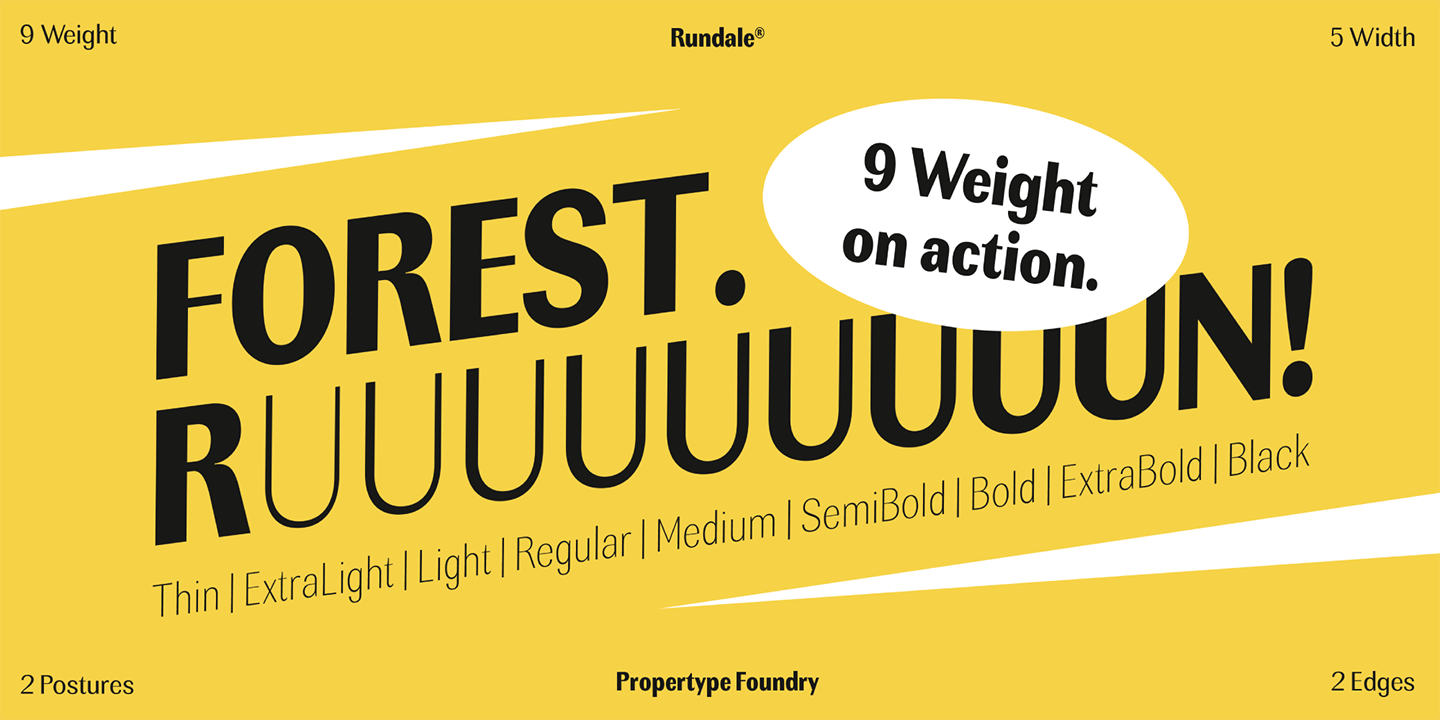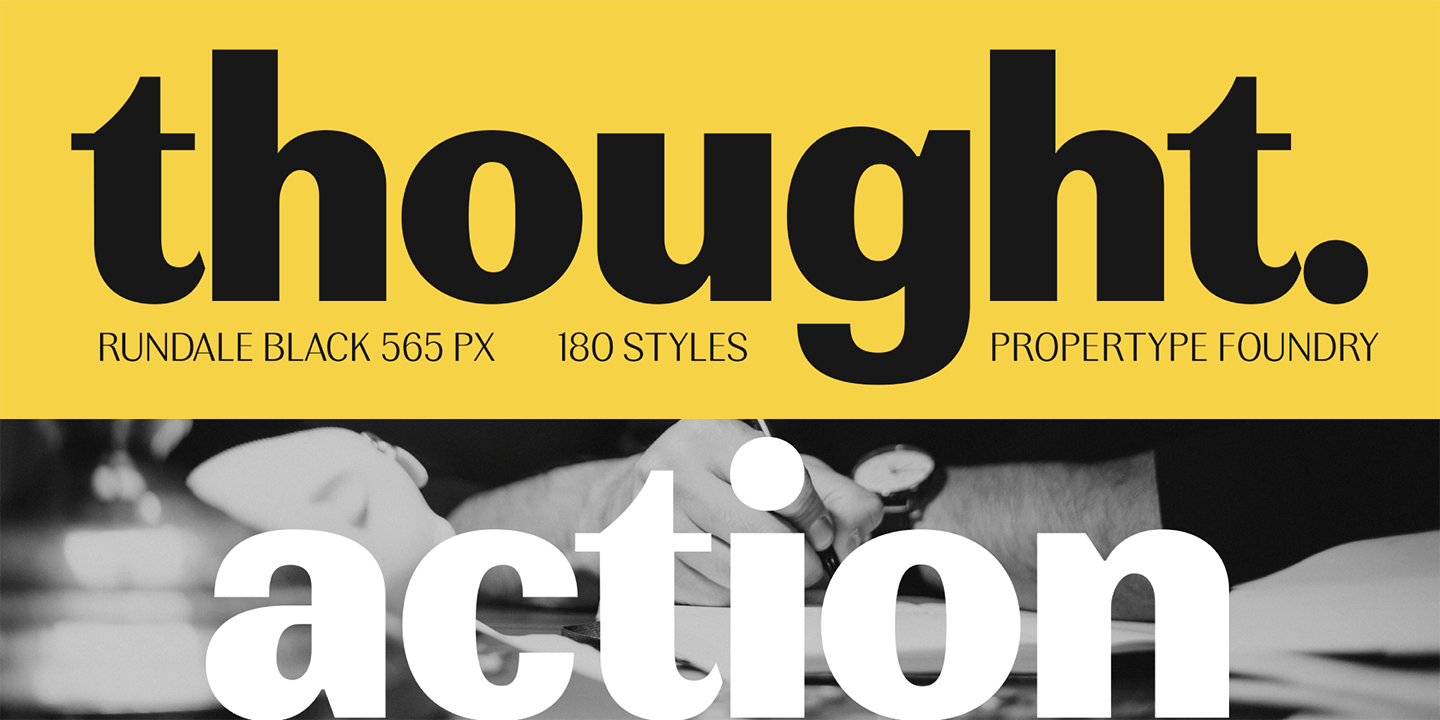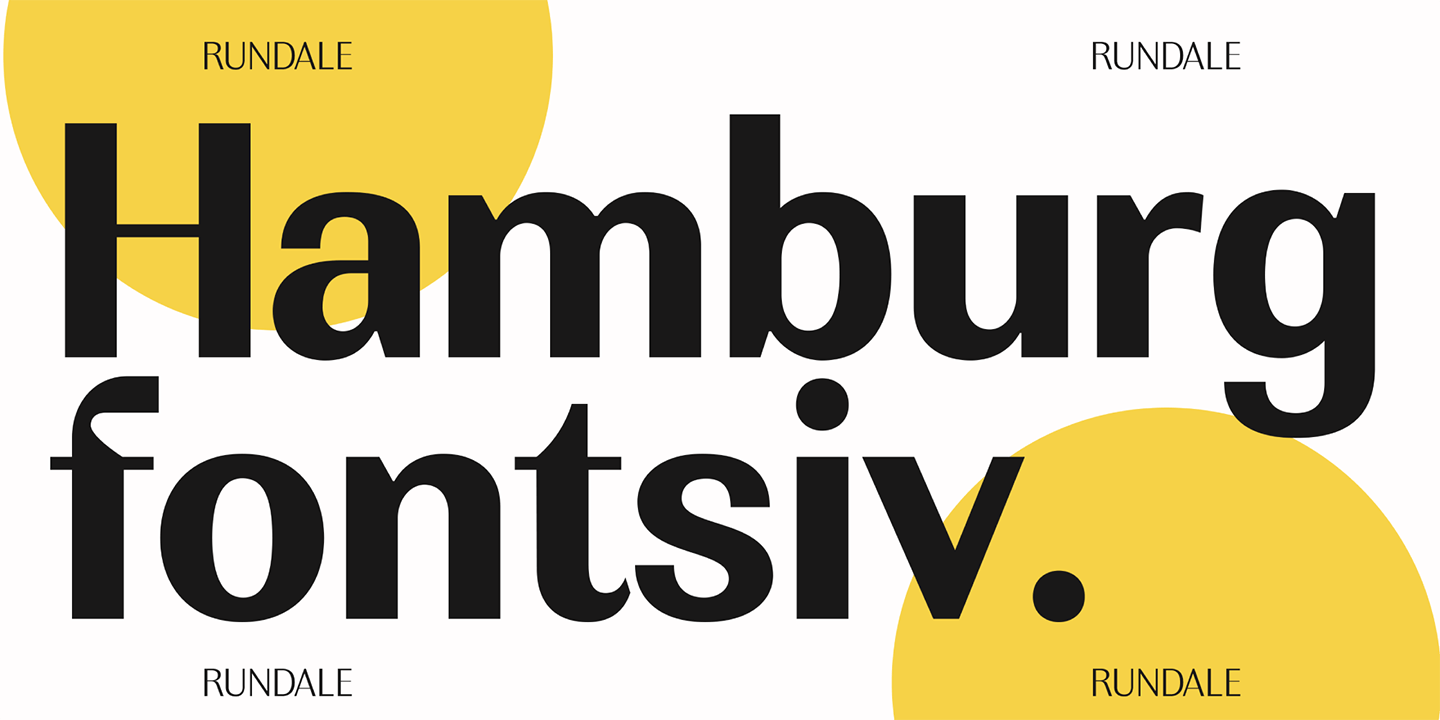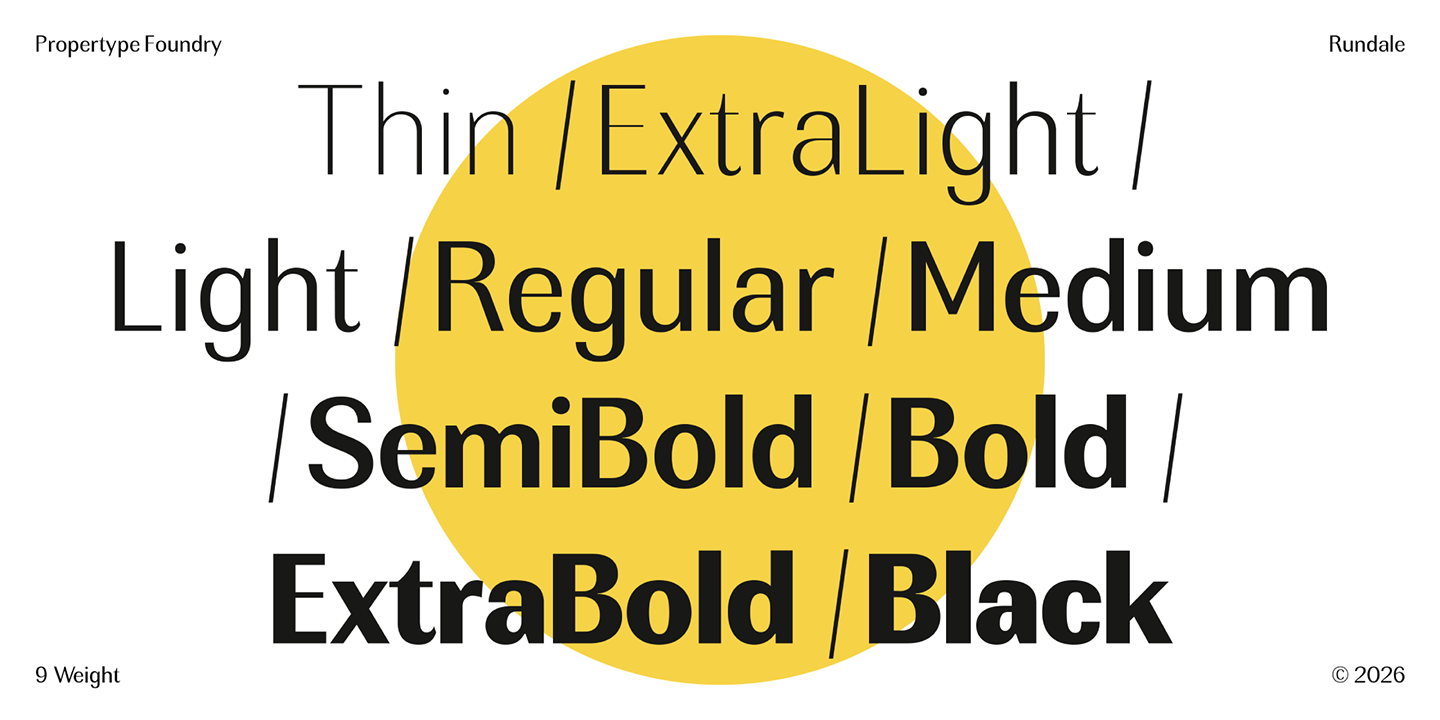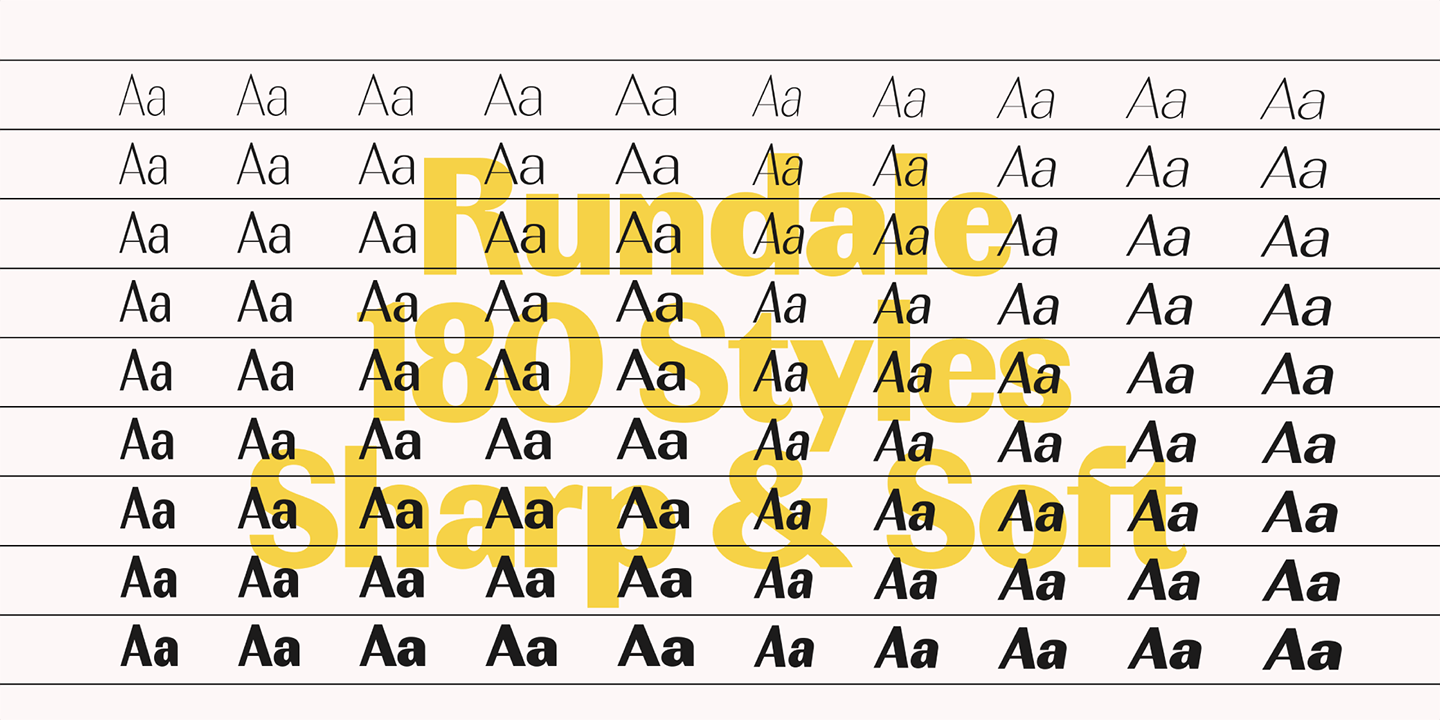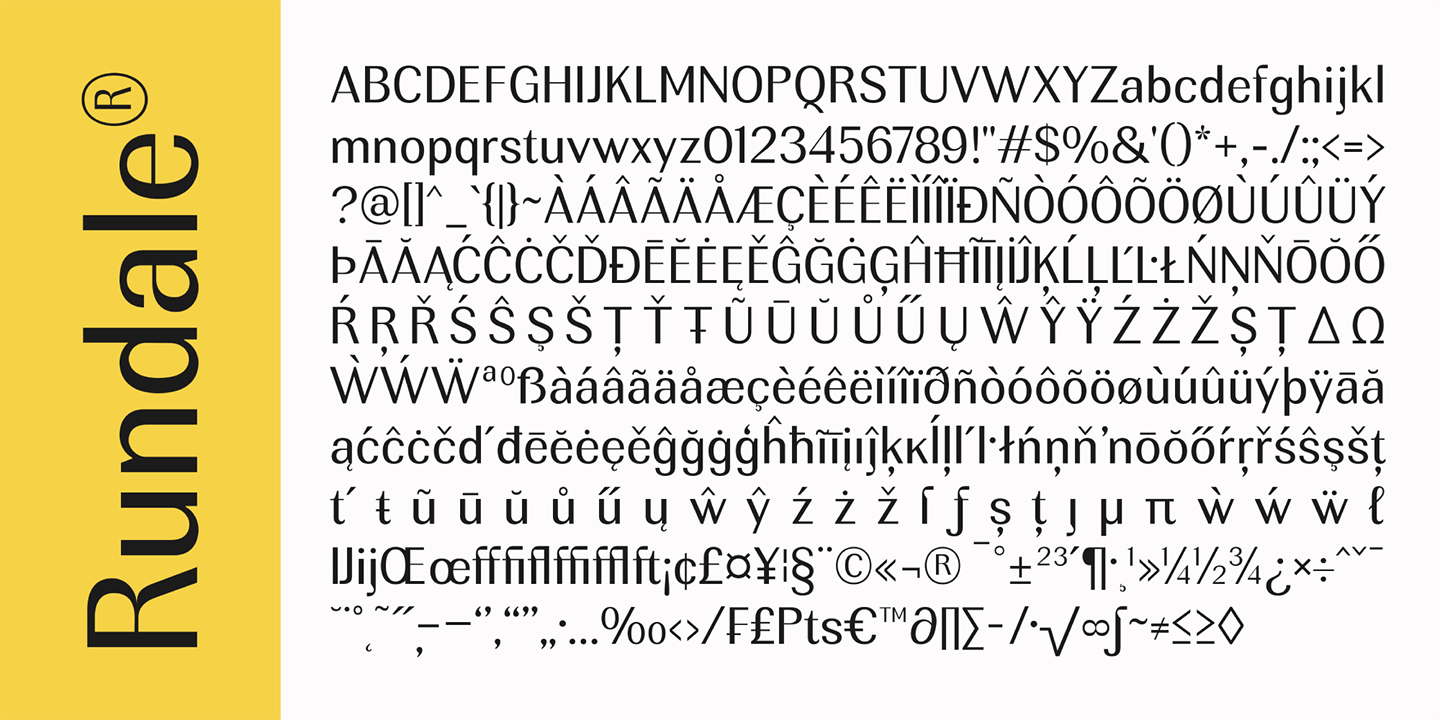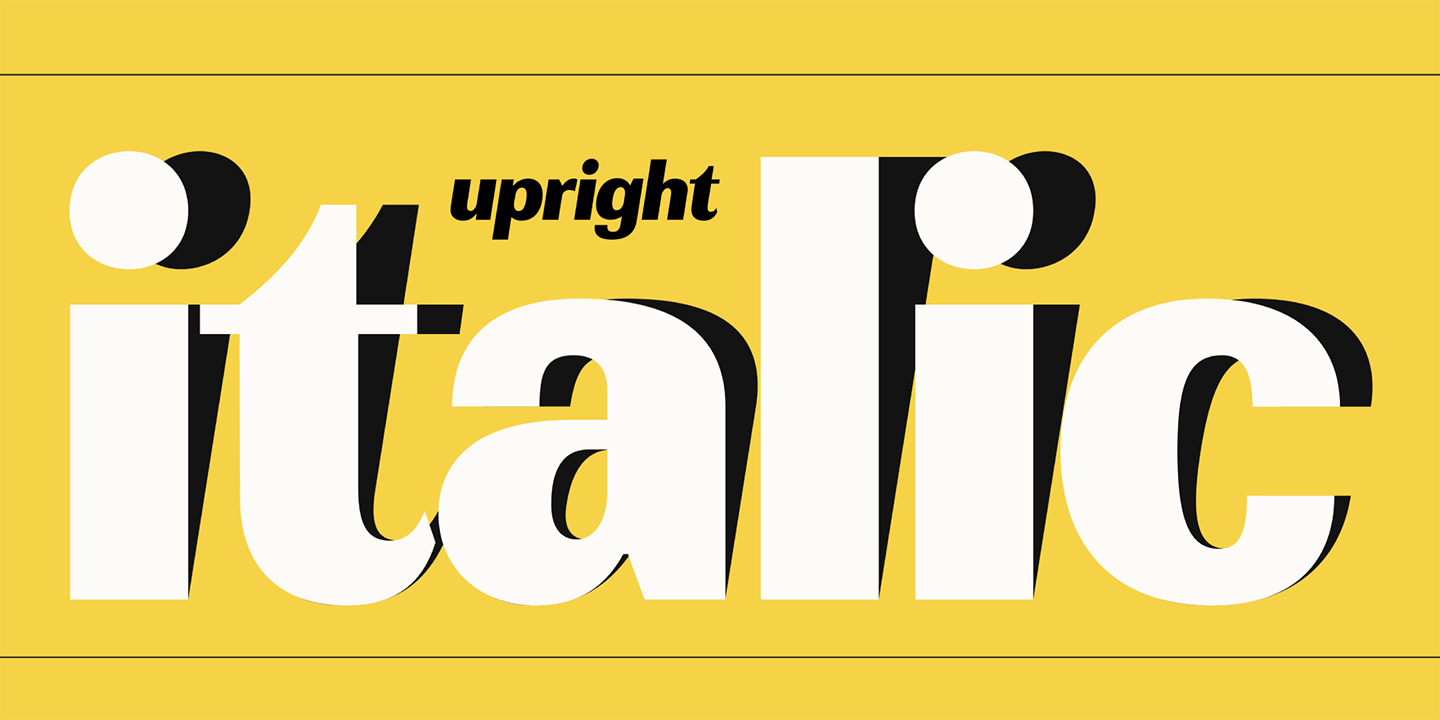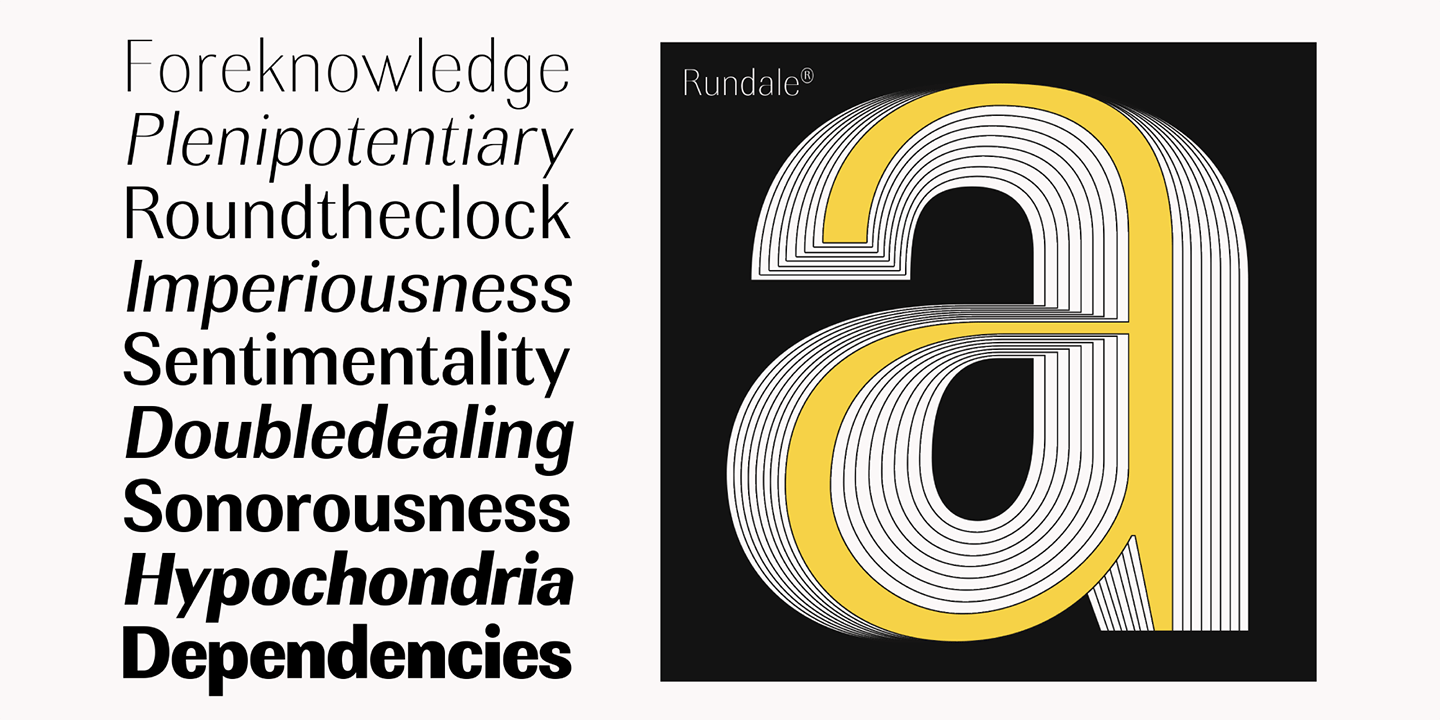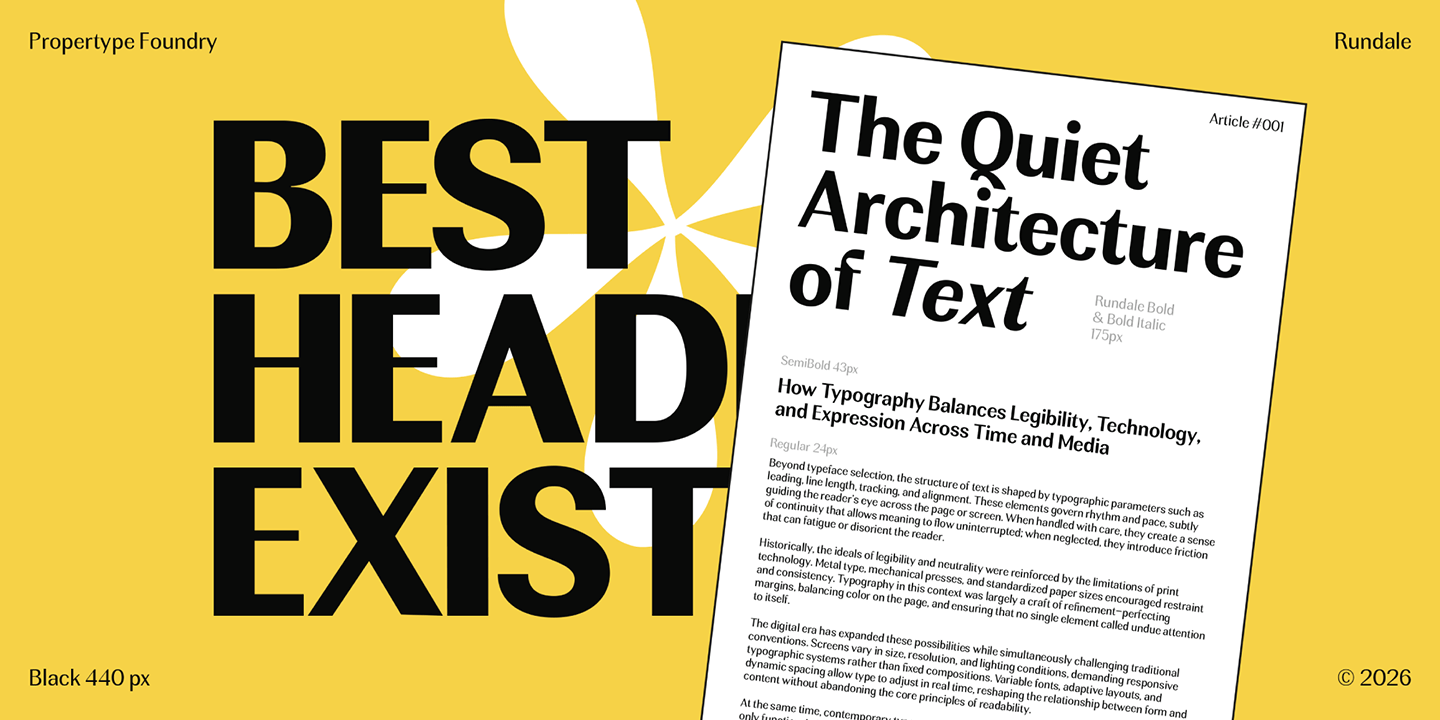
Rundale
Rundale is an elegant, modern, and contrasting Suns serif font family. It includes both upright and italic styles. This versatile font is perfect for any project, contrasting, modern, and easy to read. With this font, you can create logos, use it in advertisements, packaging, book and magazine covers, titles, descriptions, and more.
The Rundale font family has multilingual support for various languages.